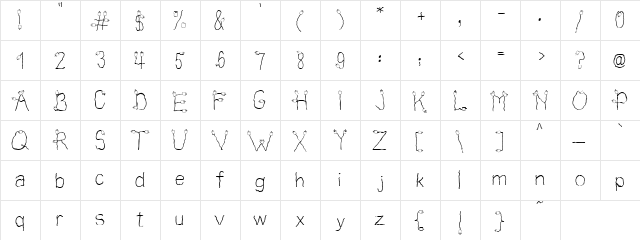
PC Marshmallow Regular
Design Context for PC Marshmallow Typeface
PC Marshmallow is a composed and adaptable typeface that performs quietly and consistently across a wide range of design contexts.